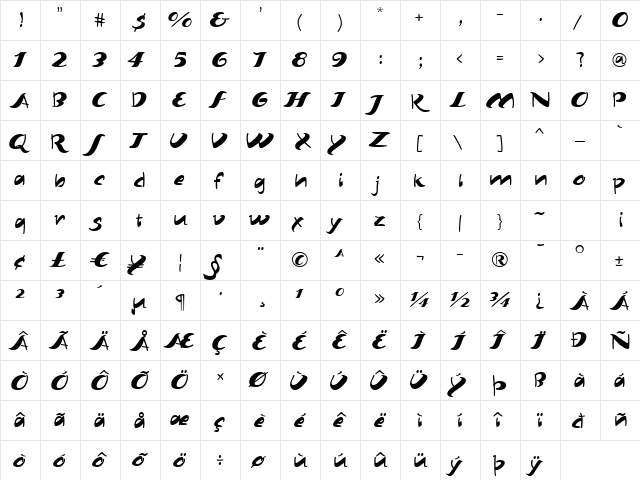
Scirocco Regular
Design Context for Scirocco Typeface
Scirocco is a composed and adaptable typeface that performs quietly and consistently across a wide range of design contexts.